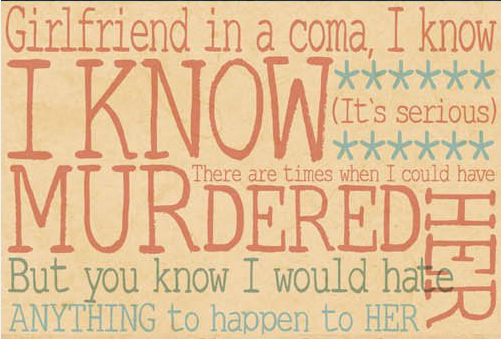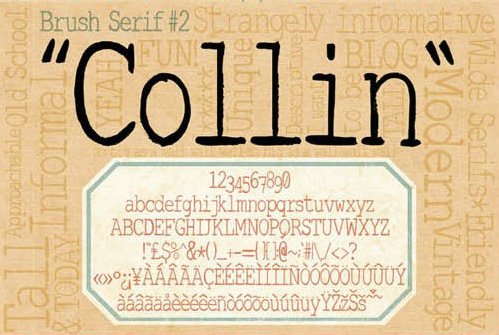
Brush Serif – Collin Hand Painted
“Brush Serif” was inspired by all the classic serifs you know and love. Every font was styled off of one or more “classic” typefaces and completely redrawn and hand painted with a Chinese calligraphy brush and Indian Ink.
These are as versatile as they look but are particularly striking at large sizes when all of their beautiful imperfections, dry brush edges and speckled fills are visible.